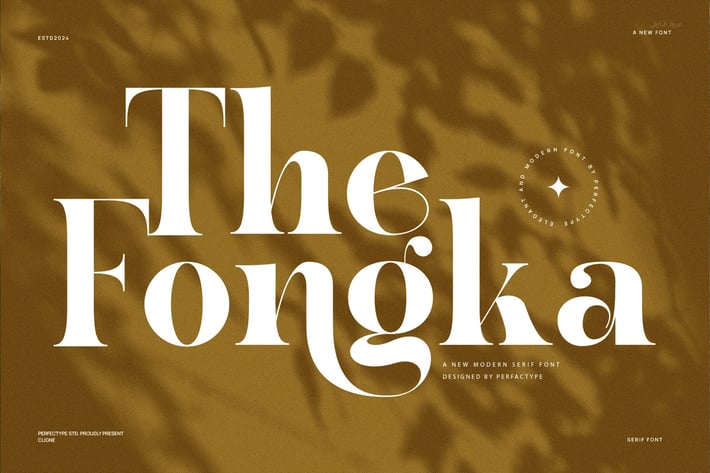
The Fongka Modern Elegant Serif Font Typeface
The Fongka Modern Elegant Serif is a strikingly refined typeface that blends contemporary sophistication with geometric precision. Designed for versatility and visual impact, this font features clean lines, well-balanced letterforms, and a subtle elegance that makes it an excellent choice for both professional and creative applications. Whether used in corporate branding, editorial layouts, or high-end packaging, The Fongka delivers a timeless yet modern appeal.
With its structured yet graceful design, this font excels across various industries, from fashion and lifestyle to esports and technology. Its crisp serifs and carefully crafted details ensure readability while adding a touch of character to logos, advertisements, magazine headlines, and digital interfaces. Whether you’re designing sleek brochures, stylish invitations, or dynamic gaming visuals, The Fongka adapts effortlessly to any creative vision.
This typeface strikes the perfect balance between minimalism and sophistication, offering a polished look for agencies, brands, and entrepreneurs aiming for a strong, contemporary identity. Its seamless flow and refined ligatures allow for elegant typography that feels both modern and timeless, making it suitable for both print and digital platforms.
For designers seeking a serif font that embodies precision, elegance, and versatility, The Fongka Modern Elegant Serif is the perfect choice. Elevate your designs with this meticulously crafted typeface and create a lasting impression with every word.